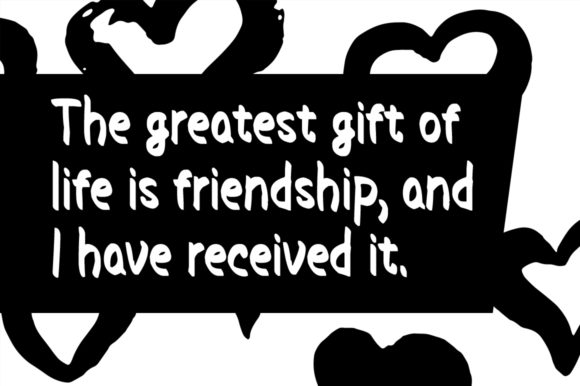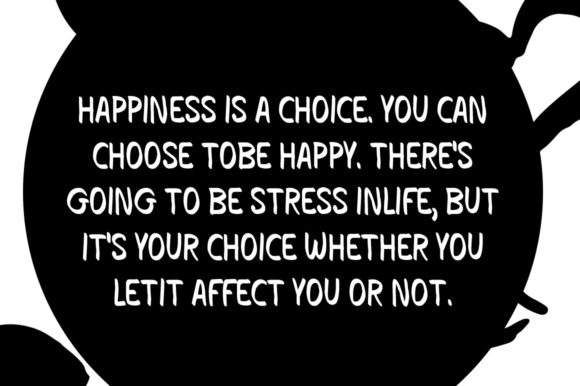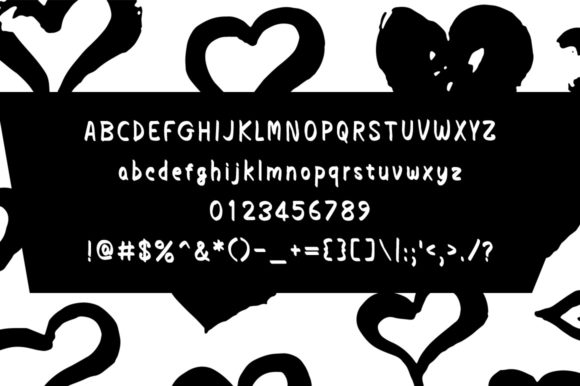
Dreamiest Font: The Ultimate Guide to this Whimsical Display Font
Are you a designer or crafter looking for a font that can add a touch of elegance and playfulness to your projects? Look no further than the Dreamiest Font! This fun and whimsical display font is perfect for a variety of creative endeavors, from crafting and scrapbooking to graphic design and digital art. In this article, we’ll dive into the world of Dreamiest Font and explore its features, uses, and benefits.
What is Dreamiest Font?
Dreamiest Font is a unique and eye-catching display font that combines elegance with a playful twist. Its cute elements and whimsical design make it perfect for projects that require a touch of personality and charm. Whether you’re creating invitations, posters, or social media graphics, Dreamiest Font is sure to inspire your creativity and add a dash of fun to your designs.
Features of Dreamiest Font
So, what makes Dreamiest Font so special? Here are just a few of its standout features:
- Whimsical design: Dreamiest Font boasts a playful and whimsical design that’s perfect for adding a touch of personality to your projects.
- Elegant touch: Despite its playful nature, Dreamiest Font also has an elegant side, making it suitable for more formal projects and designs.
- Cute elements: This font is full of cute elements, from subtle swashes to playful letterforms, that will add a touch of charm to your designs.
- High-quality design: Dreamiest Font is designed with high-quality craftsmanship in mind, ensuring that it looks great in any context.
Uses for Dreamiest Font
Dreamiest Font is a versatile font that can be used in a variety of creative projects, including:
- Crafting and scrapbooking: Add a touch of personality to your scrapbook pages, journal entries, and craft projects with Dreamiest Font.
- Graphic design: Use Dreamiest Font to create eye-catching posters, flyers, and brochures that showcase your brand’s personality.
- Digital art: Dreamiest Font is perfect for digital artists who want to add a touch of whimsy to their artwork.
- Social media graphics: Stand out on social media with Dreamiest Font, which is perfect for creating engaging graphics and posts.
Benefits of Using Dreamiest Font
So, why should you choose Dreamiest Font for your next project? Here are just a few benefits of using this amazing font:
- Adds personality: Dreamiest Font adds a touch of personality and whimsy to your designs, making them stand out from the crowd.
- Easy to use: This font is easy to use and pairs well with a variety of other fonts, making it perfect for beginners and experienced designers alike.
- High-quality design: Dreamiest Font is designed with high-quality craftsmanship in mind, ensuring that it looks great in any context.
- Inspires creativity: With its cute elements and whimsical design, Dreamiest Font is sure to inspire your creativity and take your designs to the next level.
Tips for Using Dreamiest Font
Here are a few tips for getting the most out of Dreamiest Font:
- Experiment with different sizes: Dreamiest Font looks great in a variety of sizes, so don’t be afraid to experiment and find the perfect size for your project.
- Pair with other fonts: This font pairs well with a variety of other fonts, so try pairing it with some of your favorite fonts to create a unique look.
- Use it sparingly: While Dreamiest Font is a beautiful font, it can be overwhelming if used too much. Use it sparingly to add a touch of personality to your designs.
| Font Name | Dreamiest Font |
| Author | FontCove |
In conclusion, Dreamiest Font is a fun and whimsical display font that’s perfect for designers and crafters who want to add a touch of elegance and playfulness to their projects. With its cute elements, elegant design, and high-quality craftsmanship, this font is sure to inspire your creativity and take your designs to the next level. So why wait? Download Dreamiest Font today and start creating!